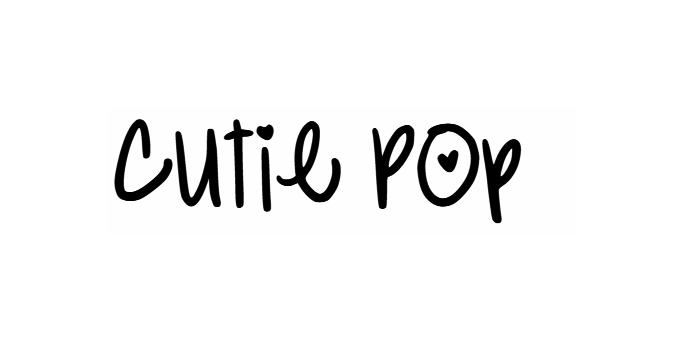
Cutie Pop
Cutie Pop is a fancy font (2009). It's a decorative display font with plenty of personality, made to grab attention. It's a free download, and you can try it with your own text in the preview above first.
What You Can Type With Cutie Pop
With complete upper and lowercase letters and all ten digits, Cutie Pop is ready for real wording, not just a single headline. Common punctuation such as &, !, ? and @ is included as well. It also has the accented letters you need for Spanish and German.
Where Cutie Pop Works Best
Designers usually reach for fonts like Cutie Pop when they're making posters, logos and eye-catching headlines. The file has no kerning data, so in logos and big titles check pairs like AV, To and Wa and tighten the spacing by hand. Use it for one standout word or headline and let simpler fonts handle the rest.